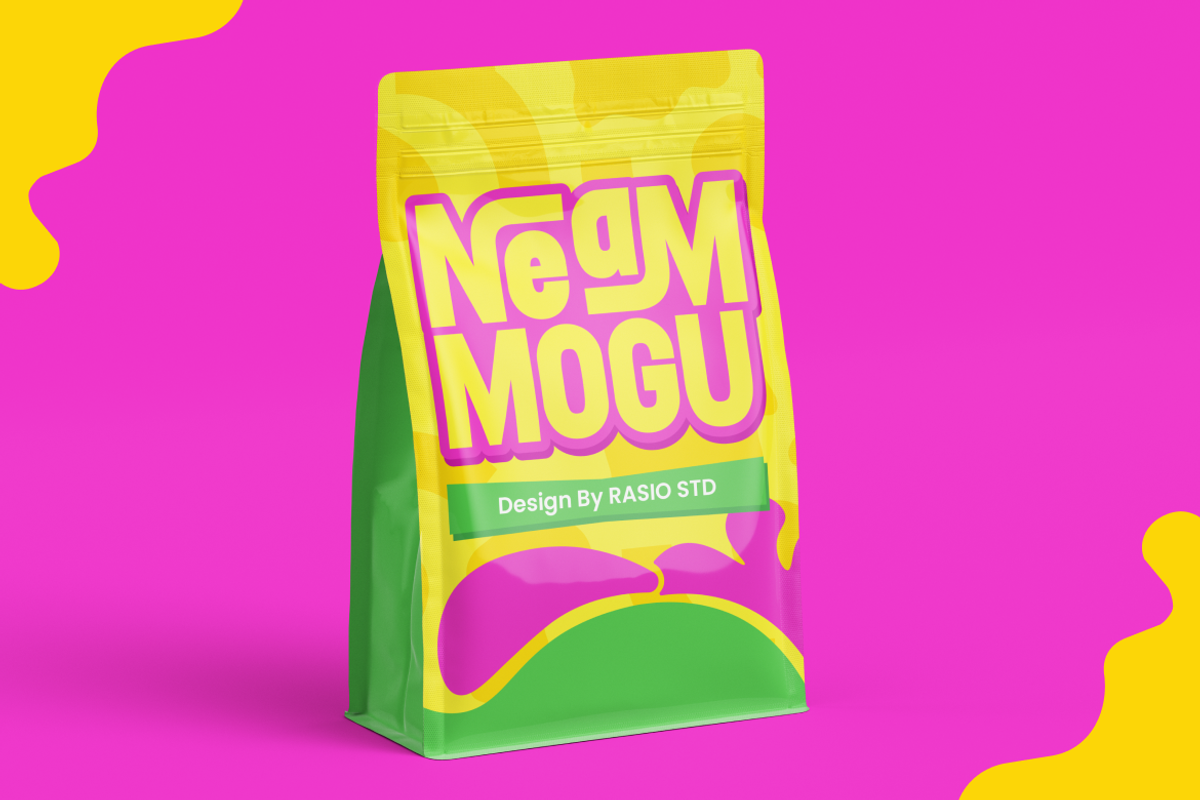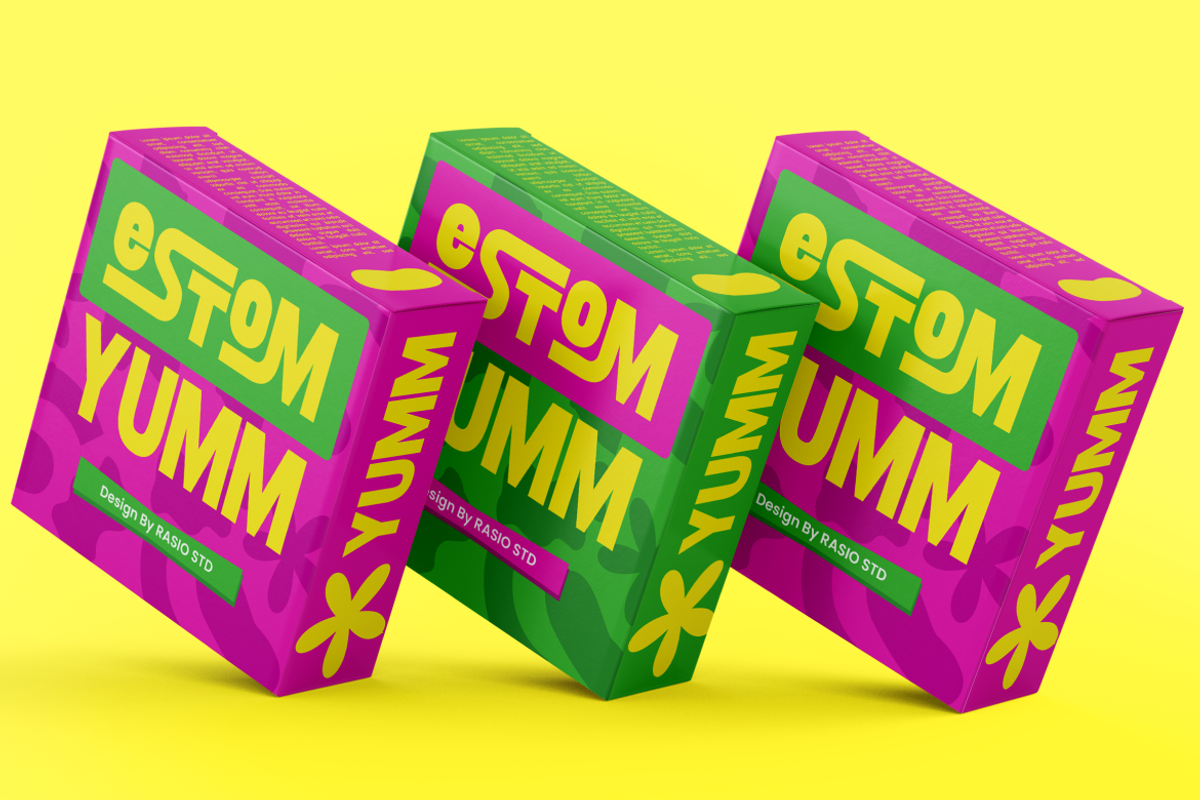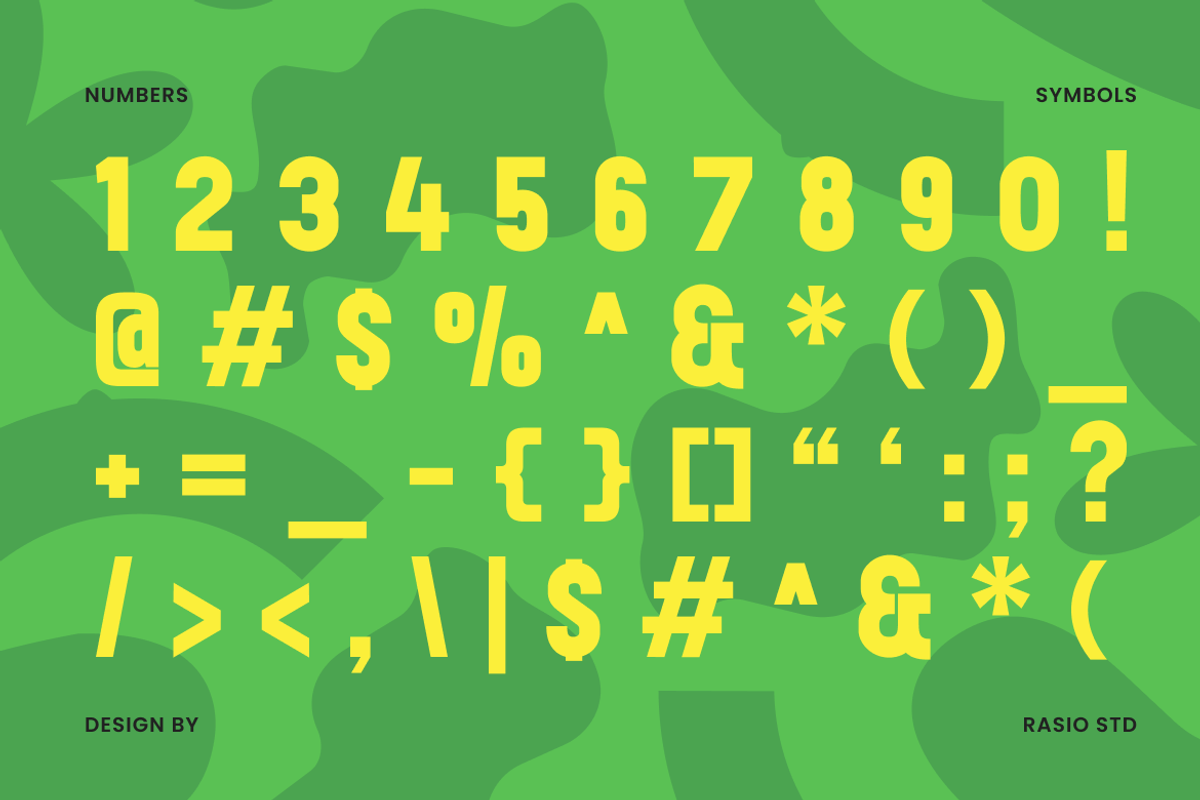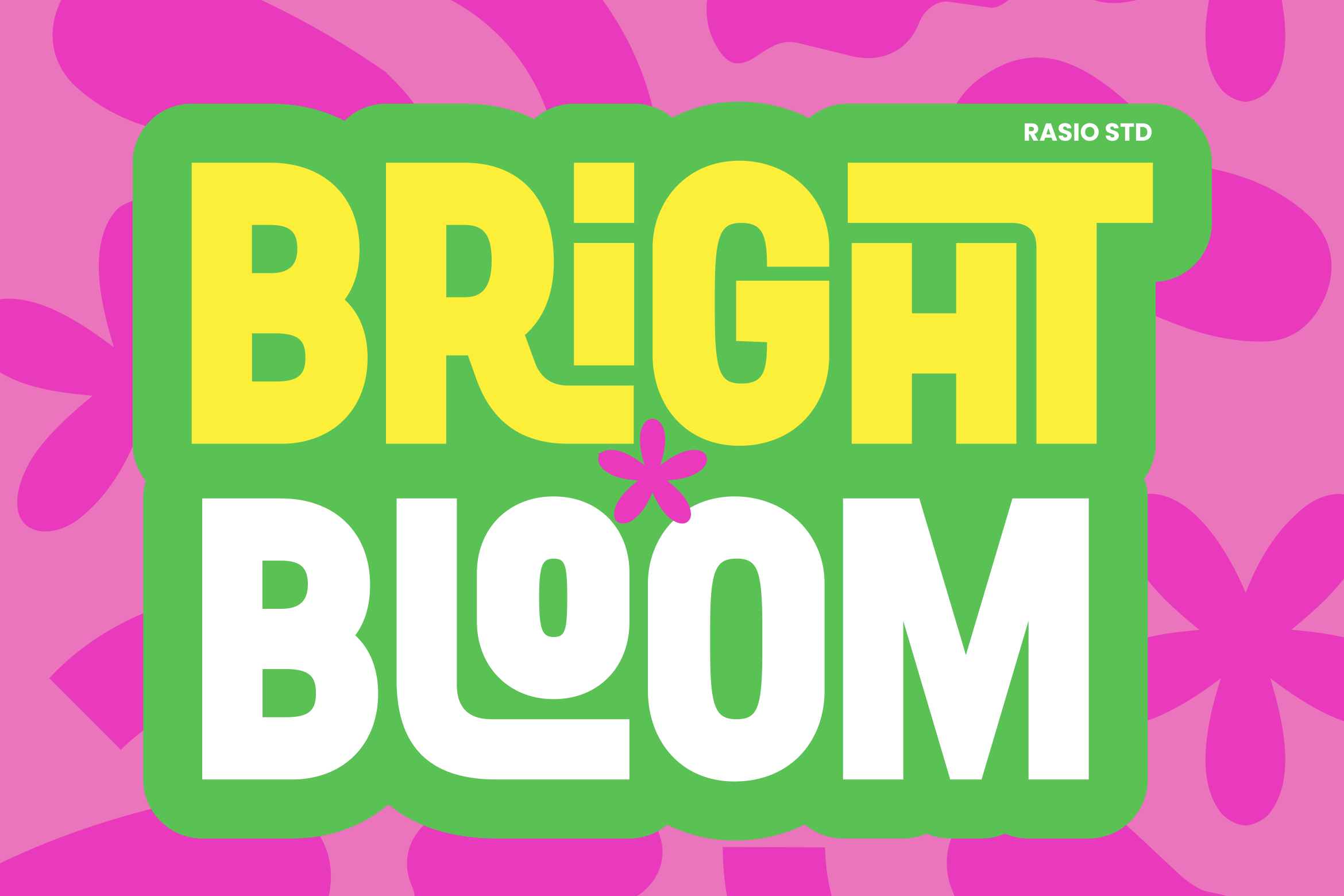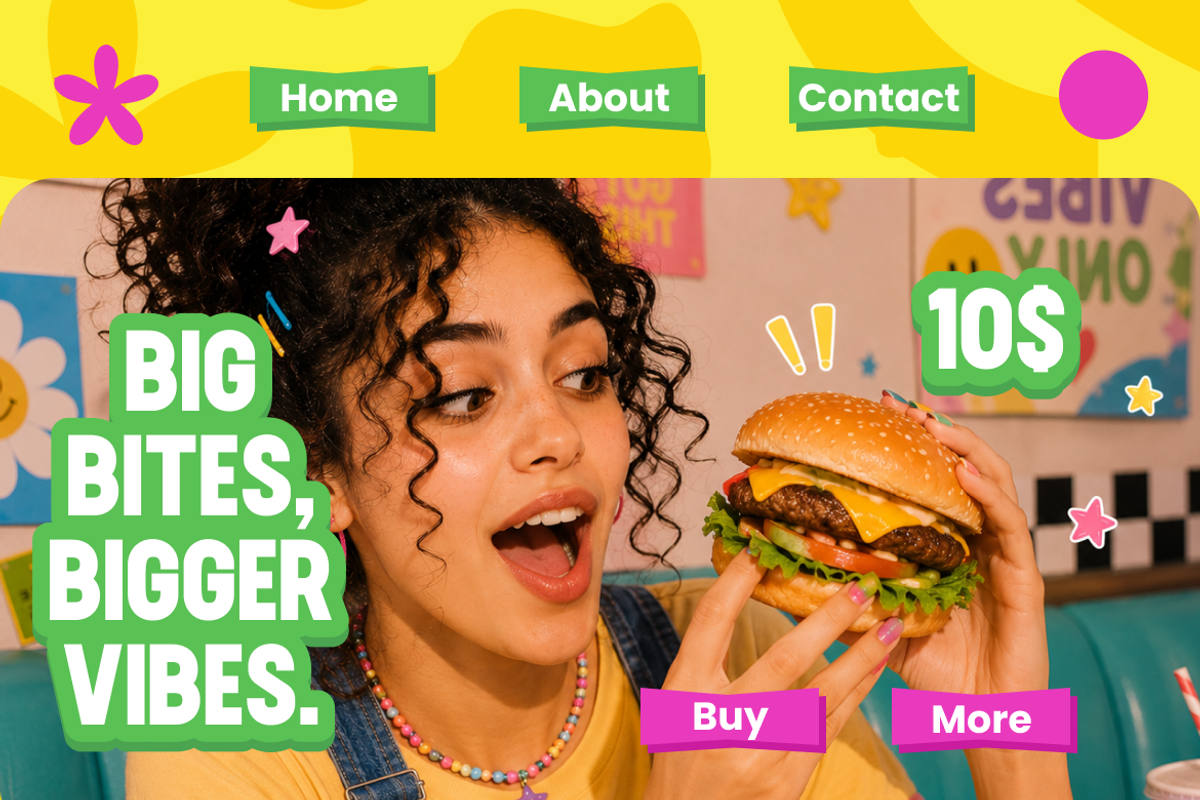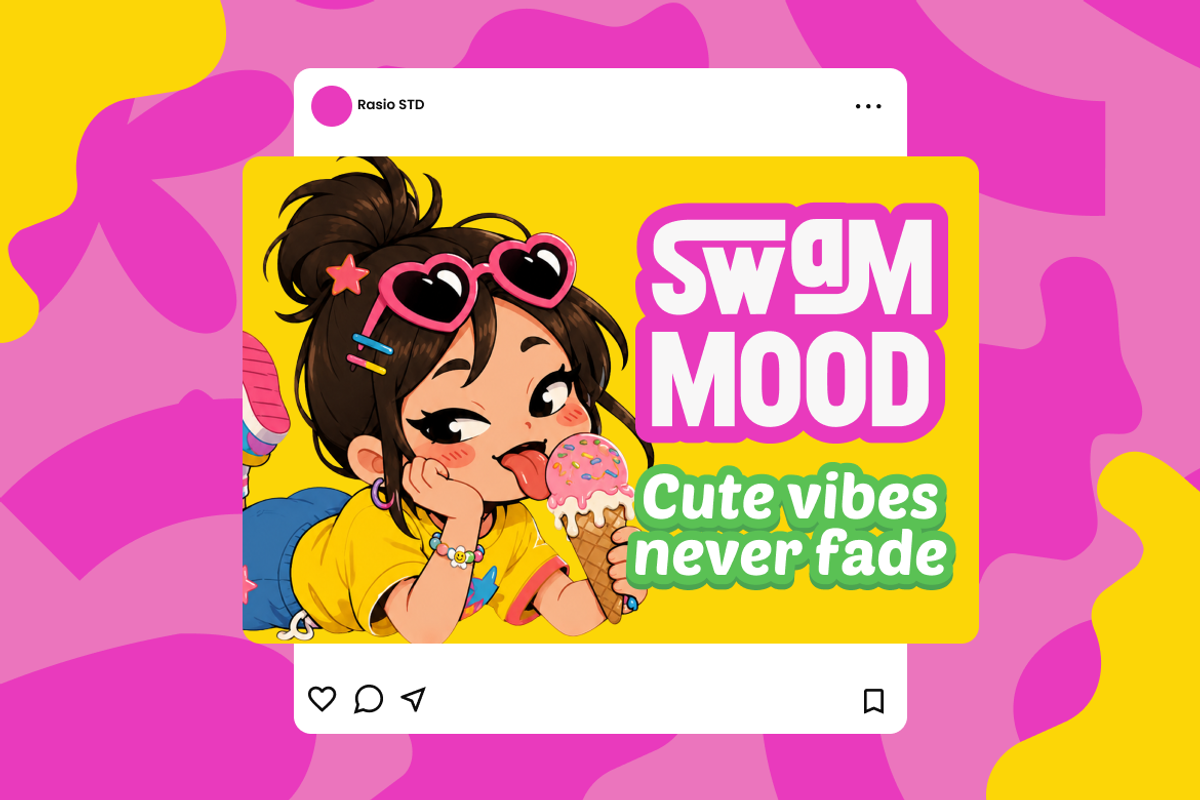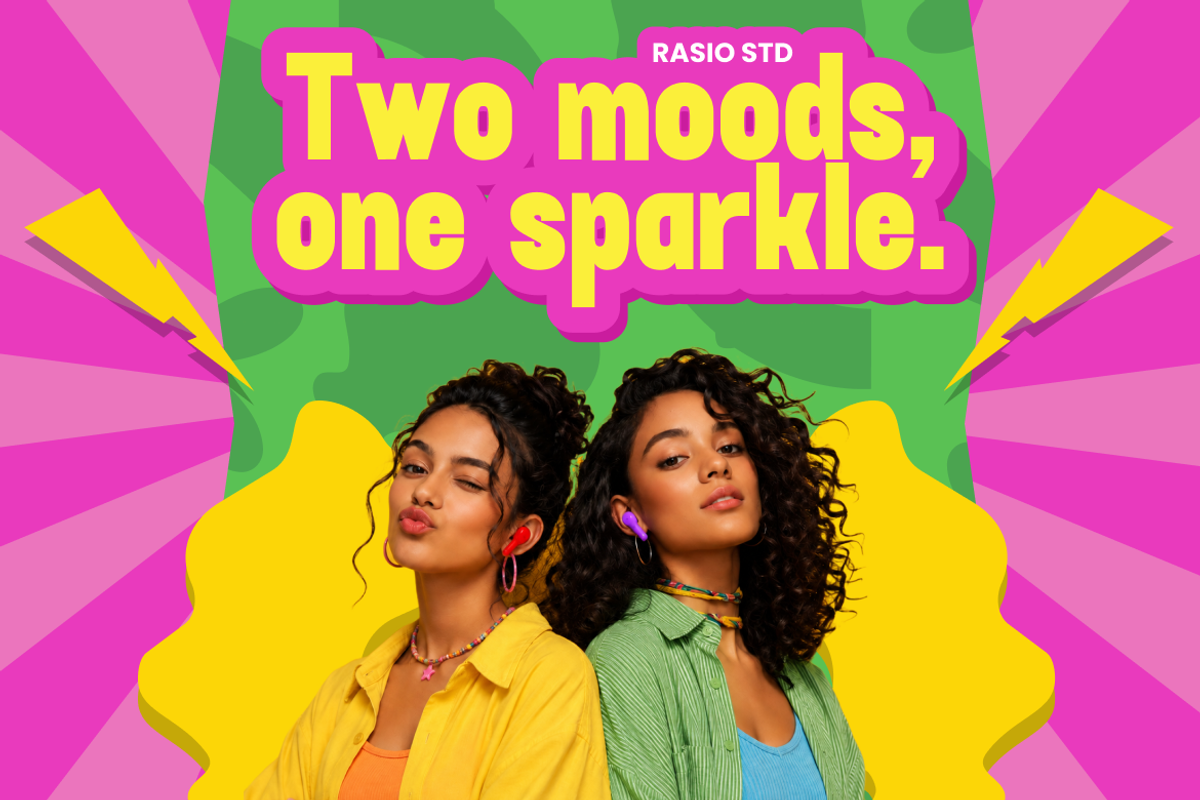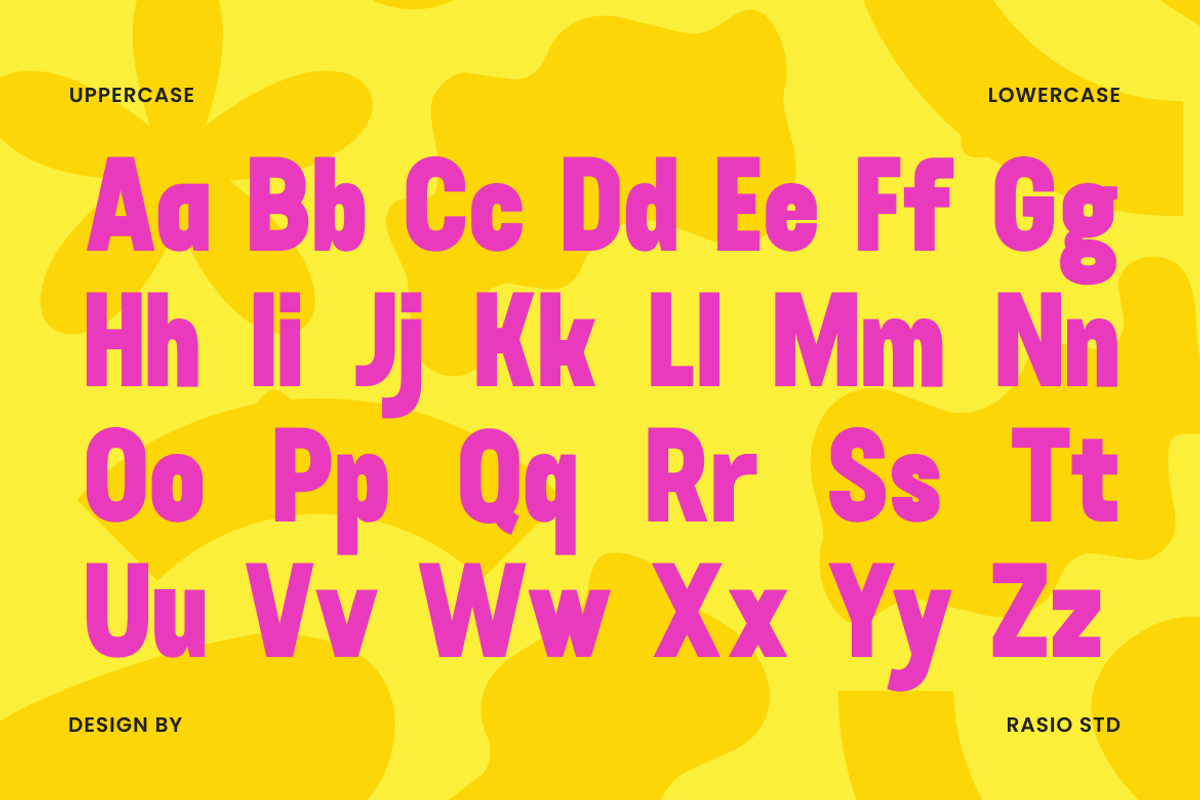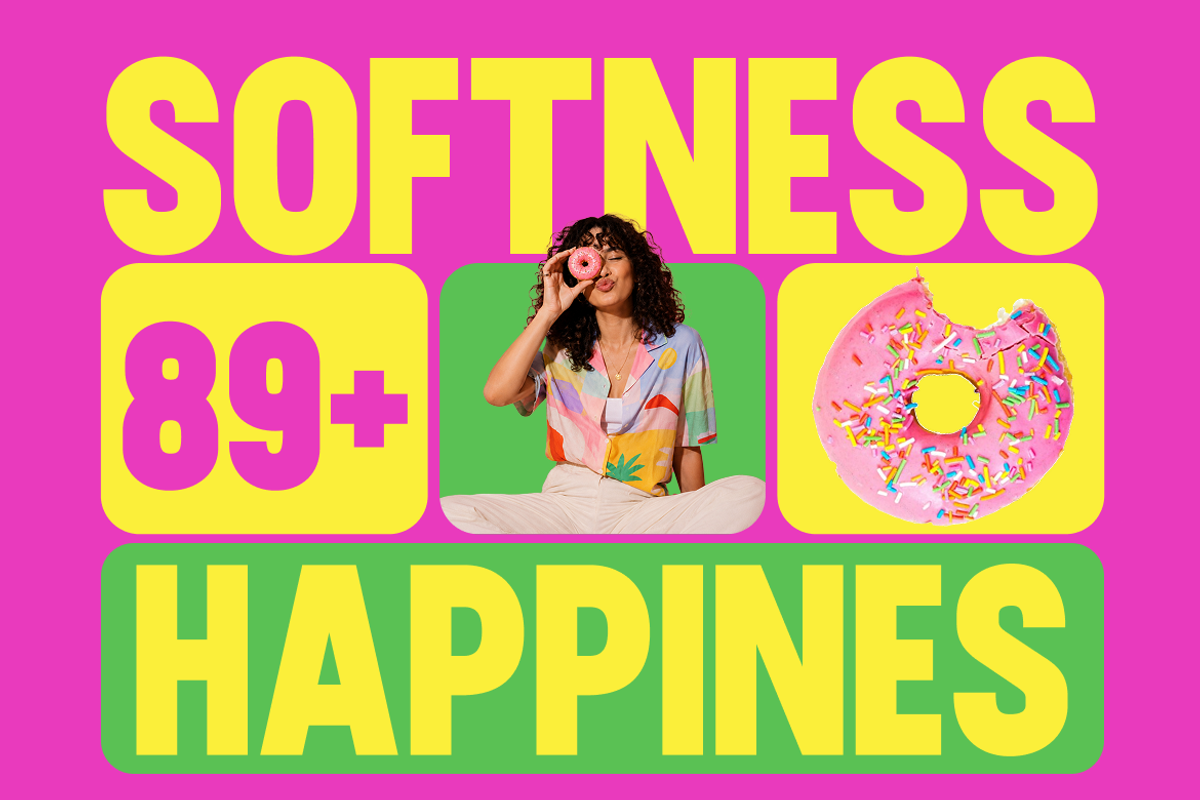
Bright Bloom Fun Display Font
Bright Bloom Fun Display Font features bold rounded letterforms with playful proportions, cheerful retro-inspired styling, and vibrant colorful aesthetics designed for energetic visual projects. The font includes uppercase and lowercase characters, numerals, punctuation, and eye-catching display typography optimized for posters, kids branding, snack packaging, playful merchandise, and social media graphics. Its chunky shapes and bold spacing create a strong visual impact while maintaining readability across print and digital layouts.
Bold chunky display style with oversized geometric proportions
Soft rounded corners and thick letterforms for a playful appearance
High-contrast vibrant aesthetic inspired by retro pop graphics
Strong visual weight designed for eye-catching headlines and posters
Fun and energetic character shapes with youthful expressive details
Screen-optimized kerning for responsive web design
Supports numerals, punctuation, and extensive symbol set